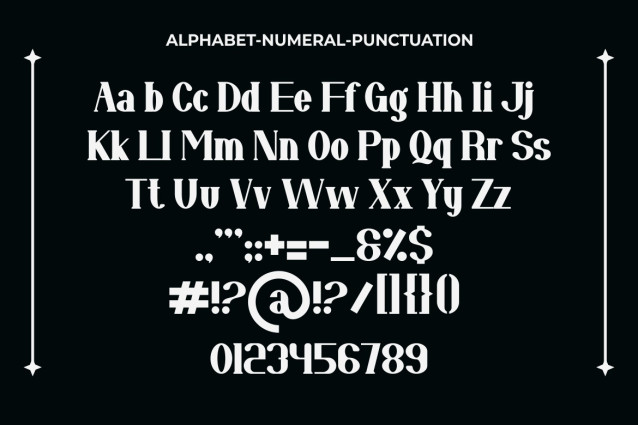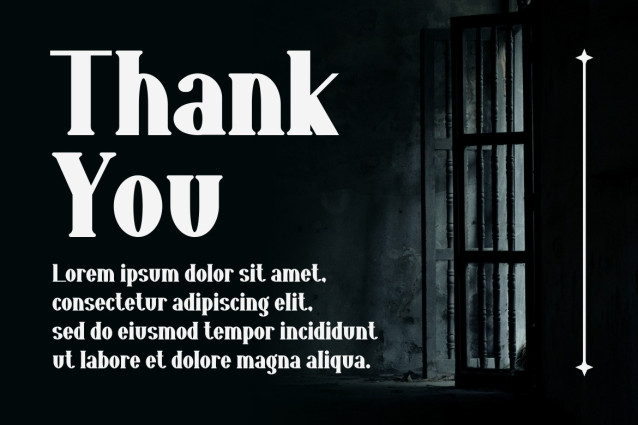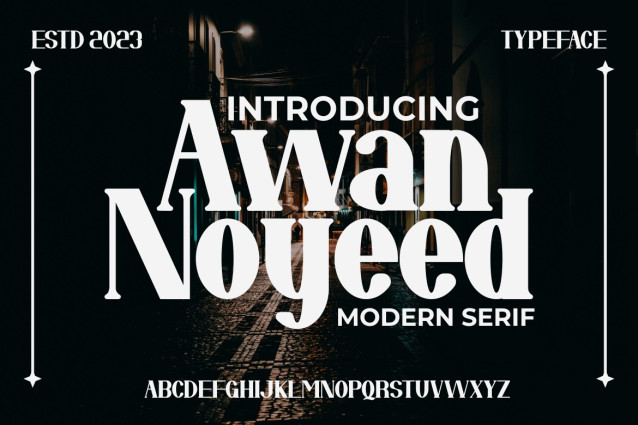
Awan Noyed Font
Awan Noyed Font – Modern Font is a bold and authentic display font. The font is suitable for all branding projects such as logos, t-shirt printing, esports, and more. It stands out in a wide range of contexts.